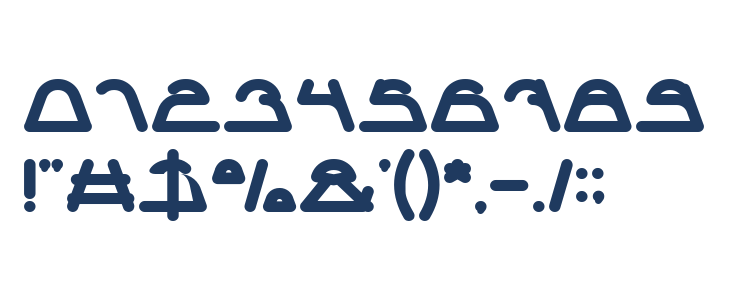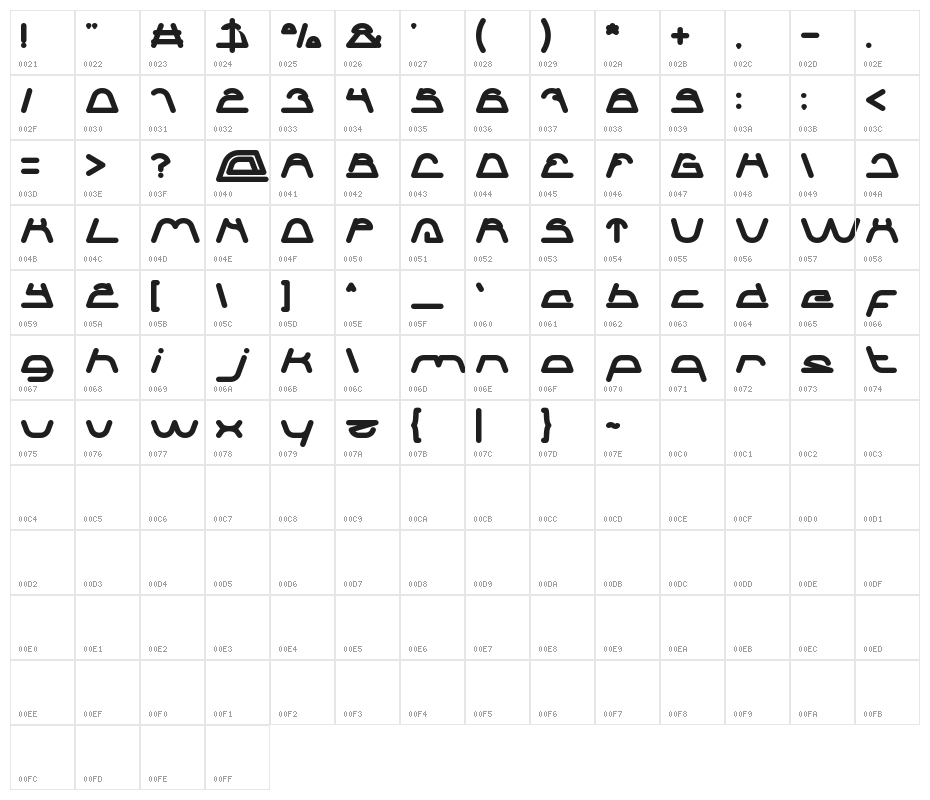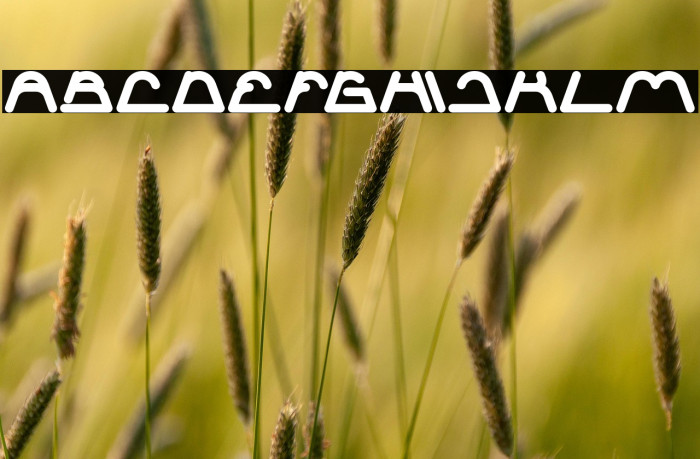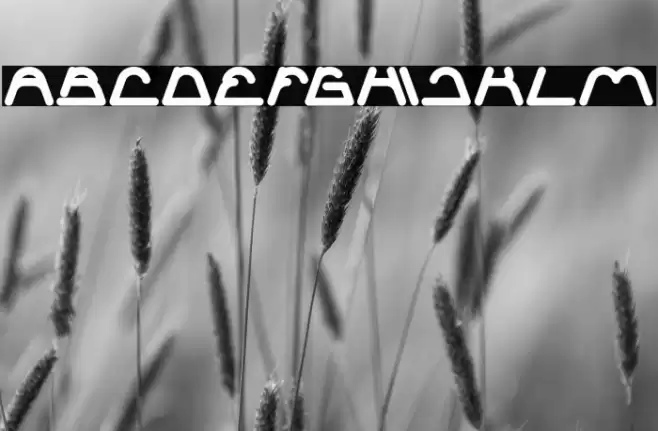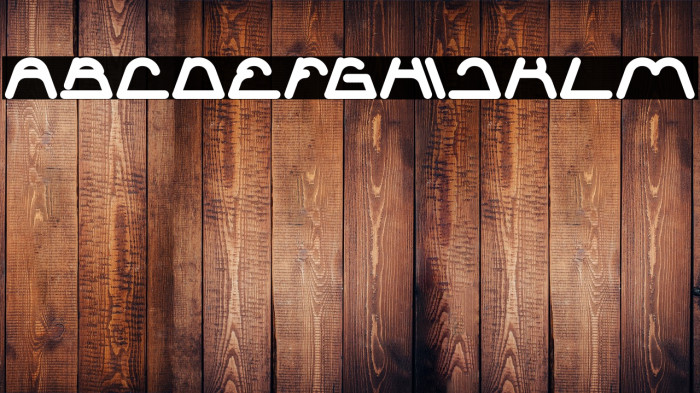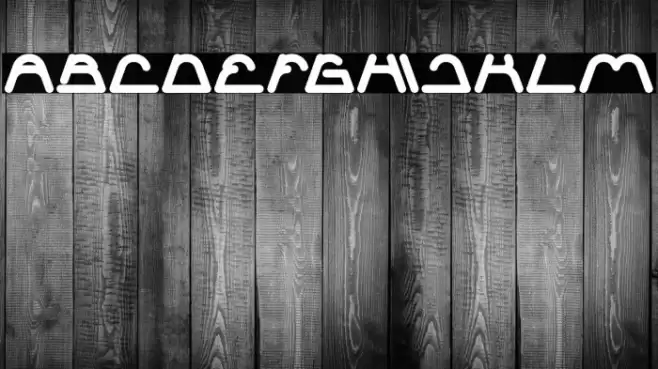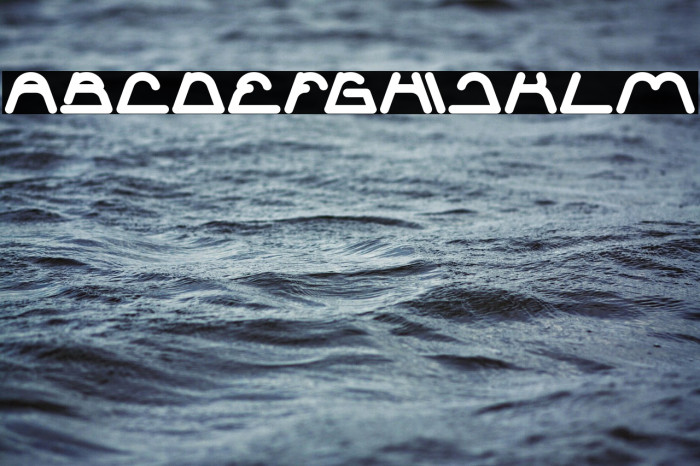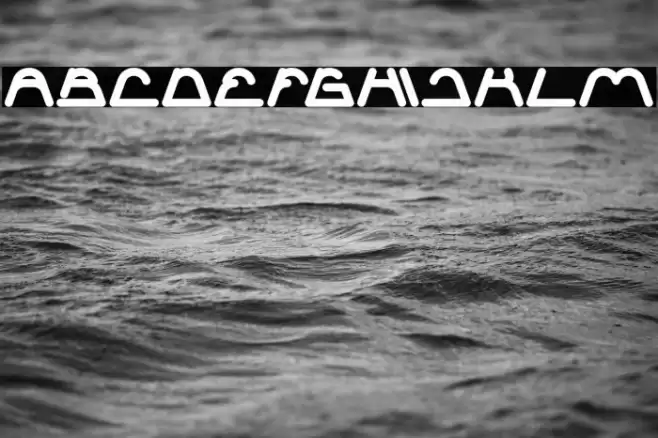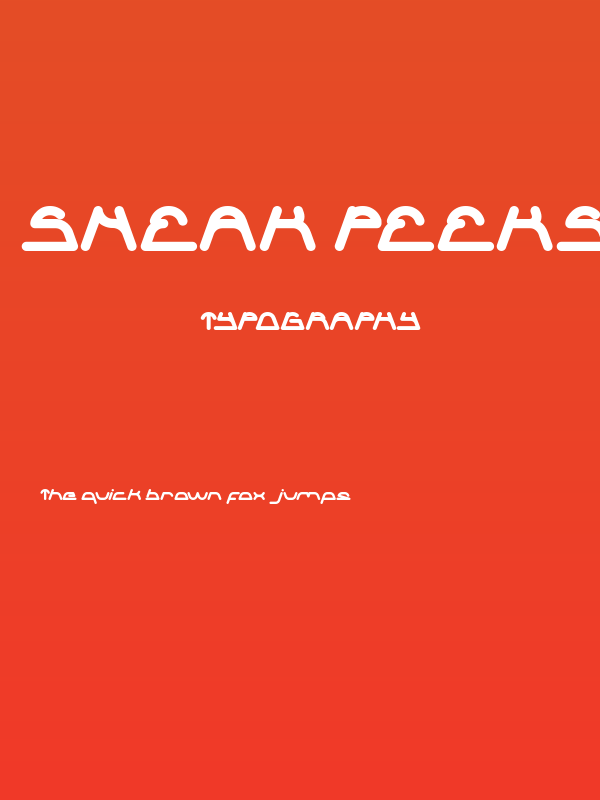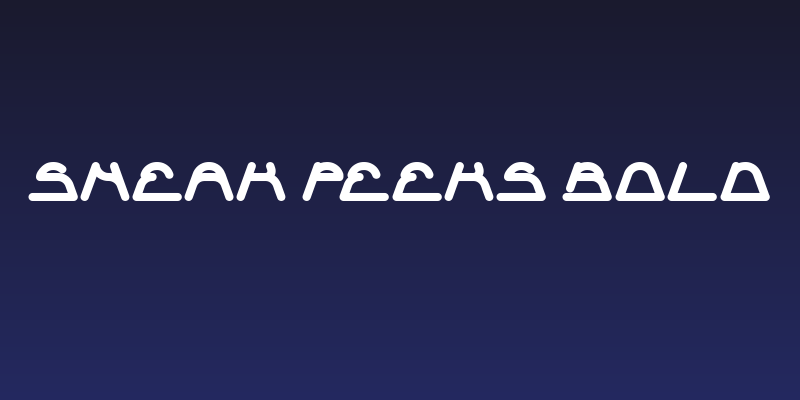
Sneak Peeks Bold Font
Sneak Peeks Bold Description
This font features a bold, futuristic design with rounded edges and a consistent stroke width. The characters are uniquely stylized, with a geometric influence that gives them a modern and tech-inspired appearance. The uppercase and lowercase letters maintain a uniform look, with distinctive shapes that are easily recognizable. Numbers and special characters follow the same design principles, ensuring a cohesive look across all elements. The font's boldness and distinctive style make it stand out, while its rounded forms add a touch of softness to the overall aesthetic.
| Proposed Projects | Ideal for technology branding, sci-fi themed projects, video game interfaces, and modern advertising campaigns. |